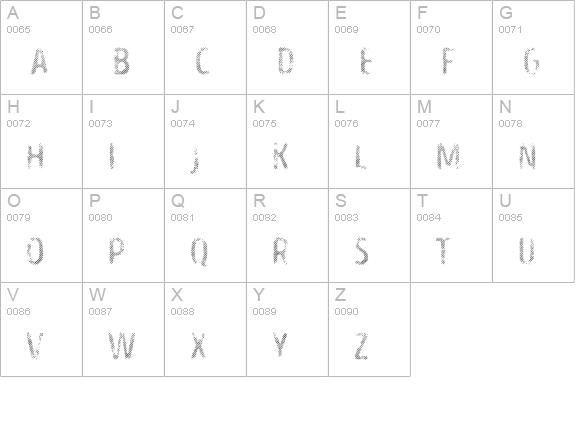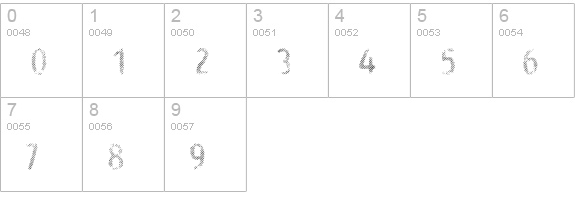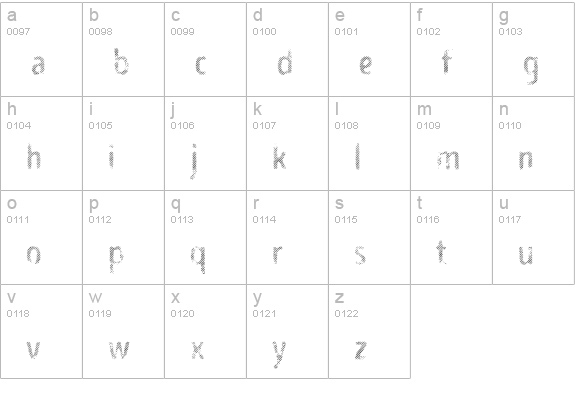
Intro Head H L Font Details
The Intro Head H L font is a stunning and modern typeface that exudes elegance and sophistication. With its bold and striking design, this font is perfect for creating eye-catching headlines, titles, and logos. The sleek lines and sharp angles give the text a powerful presence, making it ideal for making a statement in any design project. What's even better is that the Intro Head H L font is available for free download at FontsMarket.com. This means you can easily access this high-quality font without any cost, making it a fantastic choice for both personal and commercial use. Don't miss out on this incredible opportunity to elevate your designs with the Intro Head H L font today!